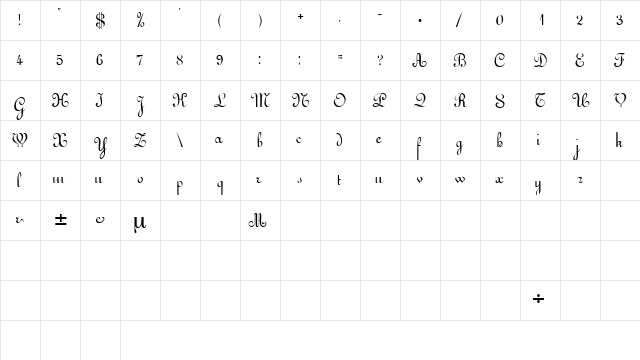
Arabesco Script SSK Regular
Design Context for Arabesco Script SSK Typeface
Arabesco Script SSK brings a calligraphic fluidity to the page — its connecting strokes and expressive curves give it an unmistakably human quality.
Font Pairing: Combine Arabesco Script SSK with a simple geometric sans for maximum contrast — the tension between flowing curves and clean structure is a classic typographic pairing.
Pro Tip: Use Arabesco Script SSK for short runs of text — names, titles, or taglines. Extended body copy in script faces tires the eye quickly.